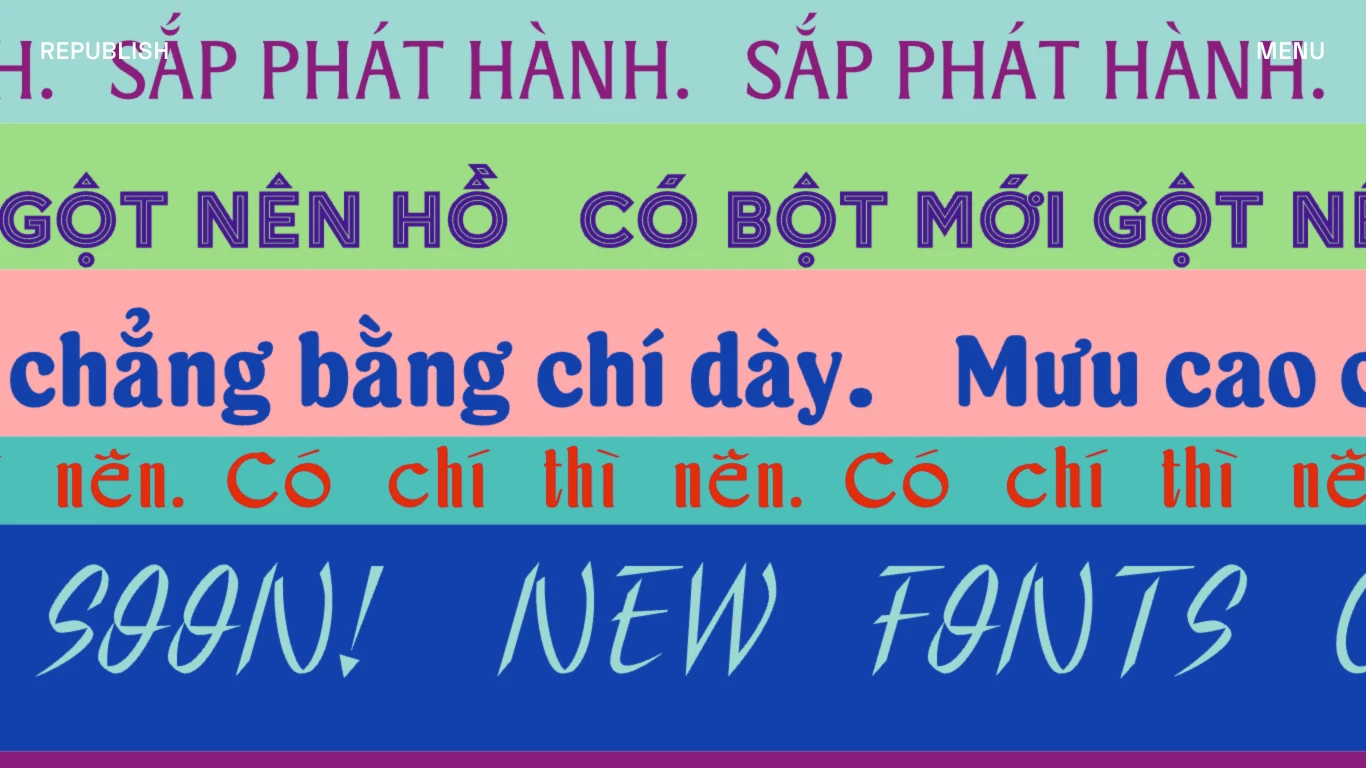
Vietnam
Republish Foundry is a Ho Chi Minh City–based digital type foundry launched by Behalf Studio. Founded as an exploratory project, it specializes in researching vernacular Vietnamese typographic fragments found in urban landscapes and archives, then revives them into open-source, free fonts. Notable work includes a curated catalog of typefaces that celebrate local visual culture and identity. Serving communities rather than commercial clients, the foundry offers fonts and storytelling tools designed by and for Vietnamese people, emphasizing cultural connection over profit. What sets Republish apart is its research-driven, speculative design process—transforming overlooked typographic history into accessible, community-focused digital type.